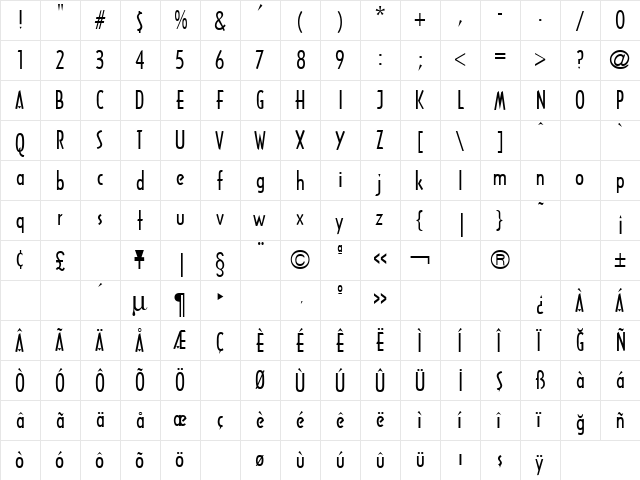
TR Architecture Regular
Design Context for TR Architecture Typeface
TR Architecture offers clean, dependable letterforms without strong stylistic allegiance, making it a practical choice for designers who need flexibility.